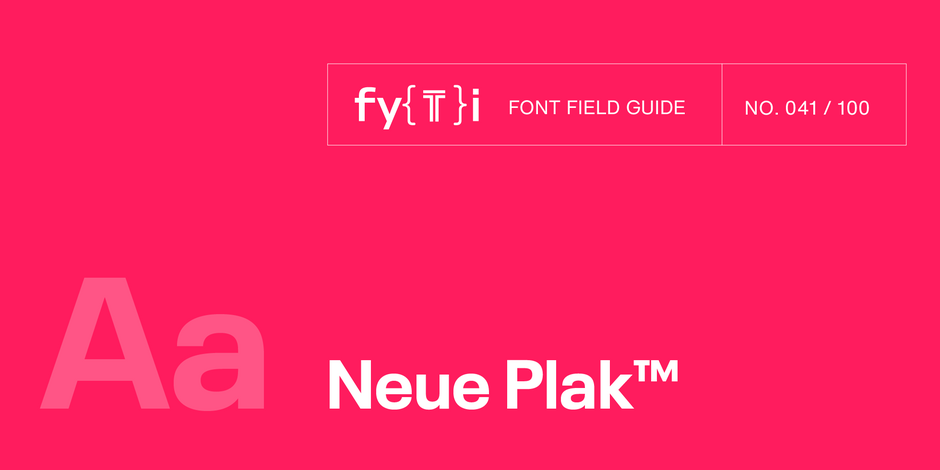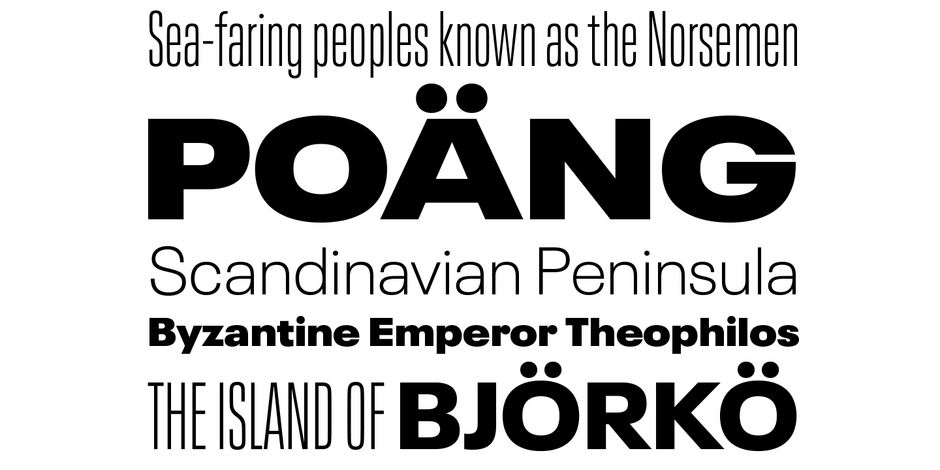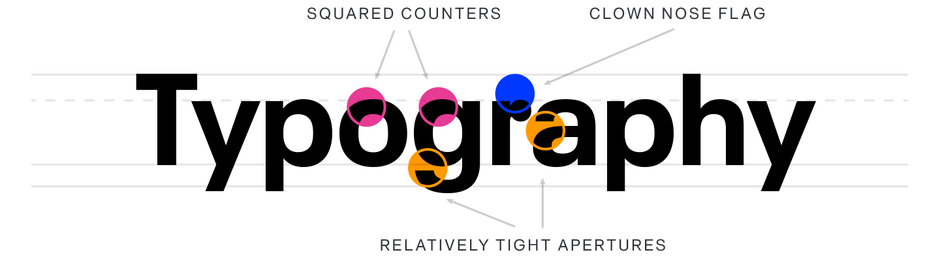
Neue Plak™ Font Field Guide
Best Practices
While “Text” weights have been designed, Neue Plak is essentially a display design. Neue Plak’s somewhat quirky design traits, make it an excellent alternative to more structured geometric sans serif typefaces.
Family
Neue Plak offers 60 weights, including a new text version that pairs with the display weights. This allows the design to perform well in print and digital environments – and within a wide range of applications.
Font Facts
• Despite being designed by Paul Renner, Plak never reached the popularity of his, earlier, Futura design.
• Hintz and Omagari based their updated and extended version on the original Plak wood type, uncovering lost details and incorporating them as alternate characters – including the choice between open or strikethrough counters.
Roots
Plak was originally designed as wood type in the late 1920s. Neue Plak is an extended and updated version of a 1928 typeface, by Paul Renner. It blends an industrial exterior with flashes of unexpected playfulness.
Legibility
Modest stroke width variations, letters with a distinct personality and simple character shapes make for a highly legible design in a wide range of sizes. Relatively closed apertures and the single-storey g, however, detract from an excellent score.
How to spot Neue Plak